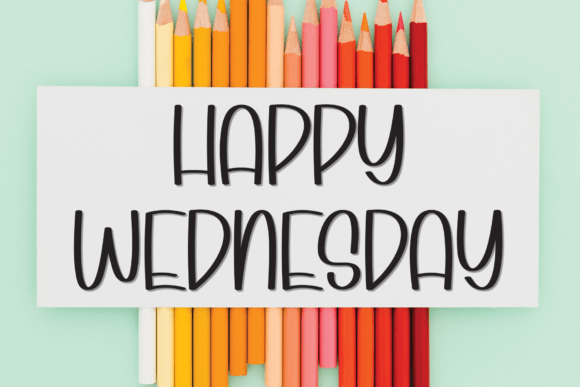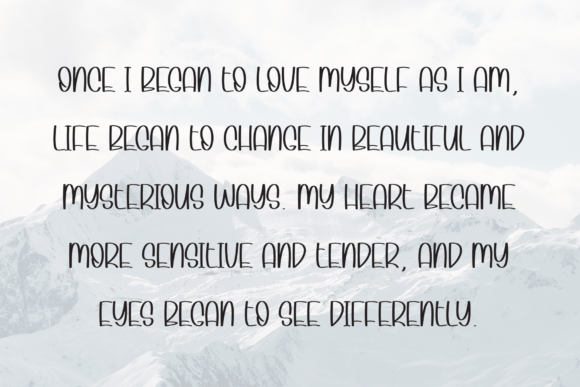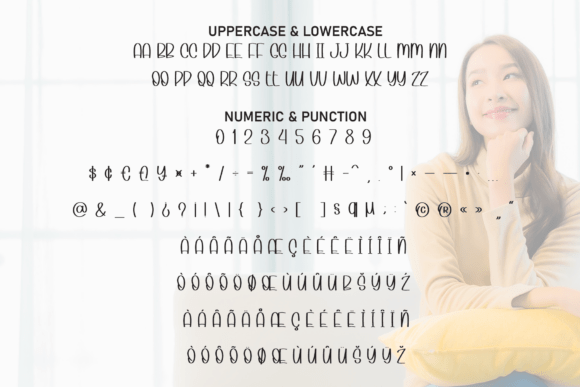
Introduction to Happy Dreaming Font
Have you ever found yourself lost in a sea of creative possibilities, searching for the perfect font to bring your vision to life? It’s a feeling we’ve all been there, staring at a blank canvas, desperate for that one special element to make our project truly shine. That’s where the Happy Dreaming Font comes in – a game-changing design resource that’s about to revolutionize the way you approach your creative projects.
As a designer, you understand the importance of a high-quality font that can elevate your work from good to great. The Happy Dreaming Font delivers just that, with its unique, hand-drawn style that’s perfect for a wide range of applications, from wedding invitations to social media post logos.
Key Features of Happy Dreaming Font
- High-quality design resource for creative projects: The Happy Dreaming Font is a beautifully crafted typeface perfect for various design applications.
- Unique characteristics: The Happy Dreaming Font features a playful, whimsical design with intricate details and flourishes, making it perfect for adding a touch of personality to creative projects.
Honest Review: Happy Dreaming Font
I recently stumbled upon the Happy Dreaming Font while searching for a design resource to elevate my creative project. I was excited to give it a try, and I must say, it’s been a game-changer.
- ✨ High-quality design: The font is beautifully crafted, with smooth lines and a whimsical feel.
- ⚠️ Limited character set: The font only includes a limited set of characters, which may not be suitable for complex designs.
Overall, I’m really impressed with the Happy Dreaming Font. It’s a great addition to any designer’s toolkit, and I’d highly recommend it for any creative project. Just be aware of the limitations and plan accordingly.
Happy Dreaming Font
Happy Dreaming Font is commonly used in creative projects such as graphic design, digital art, and typography. Its high-quality design and transparent background make it a versatile resource for designers and artists.